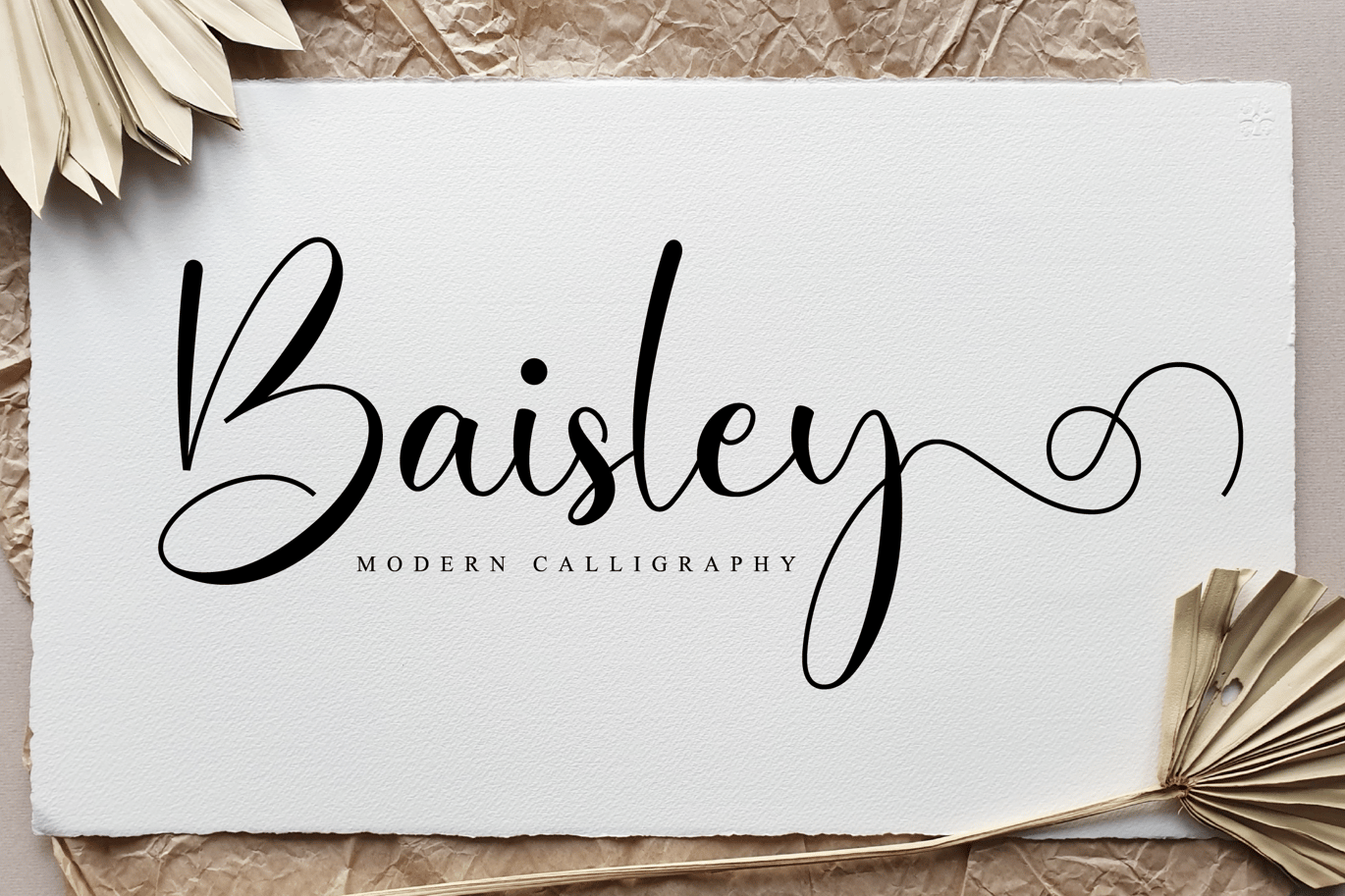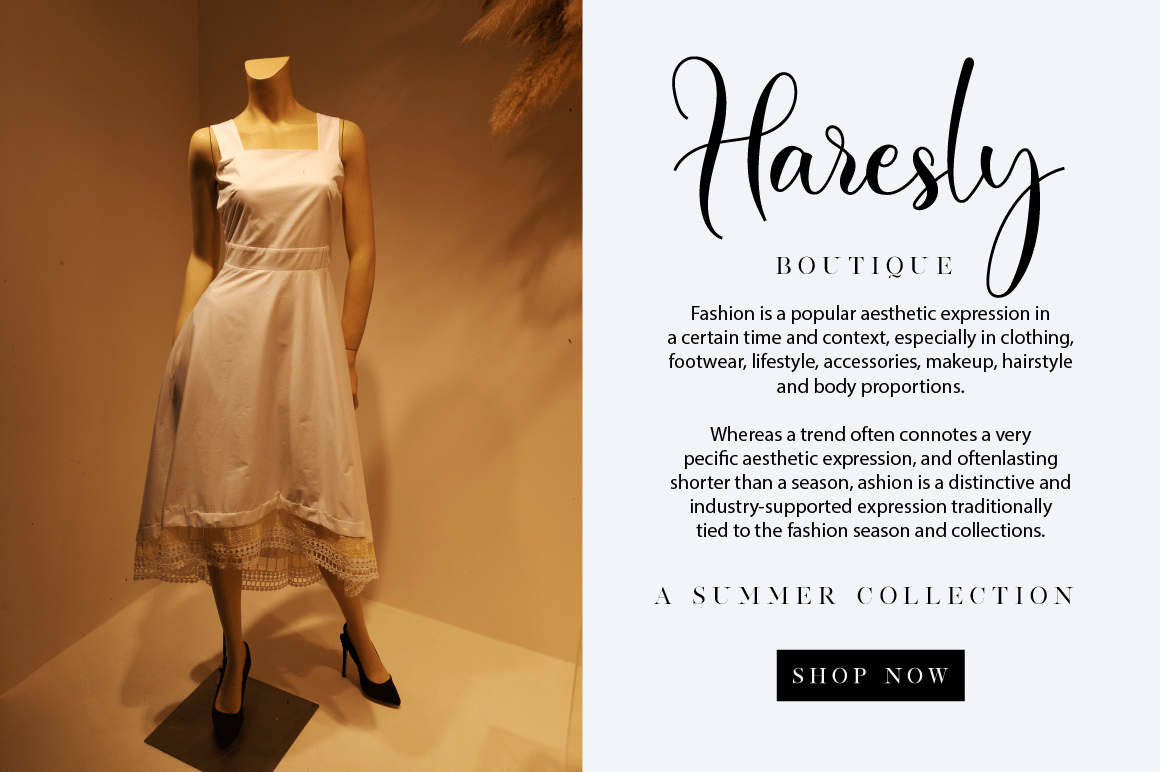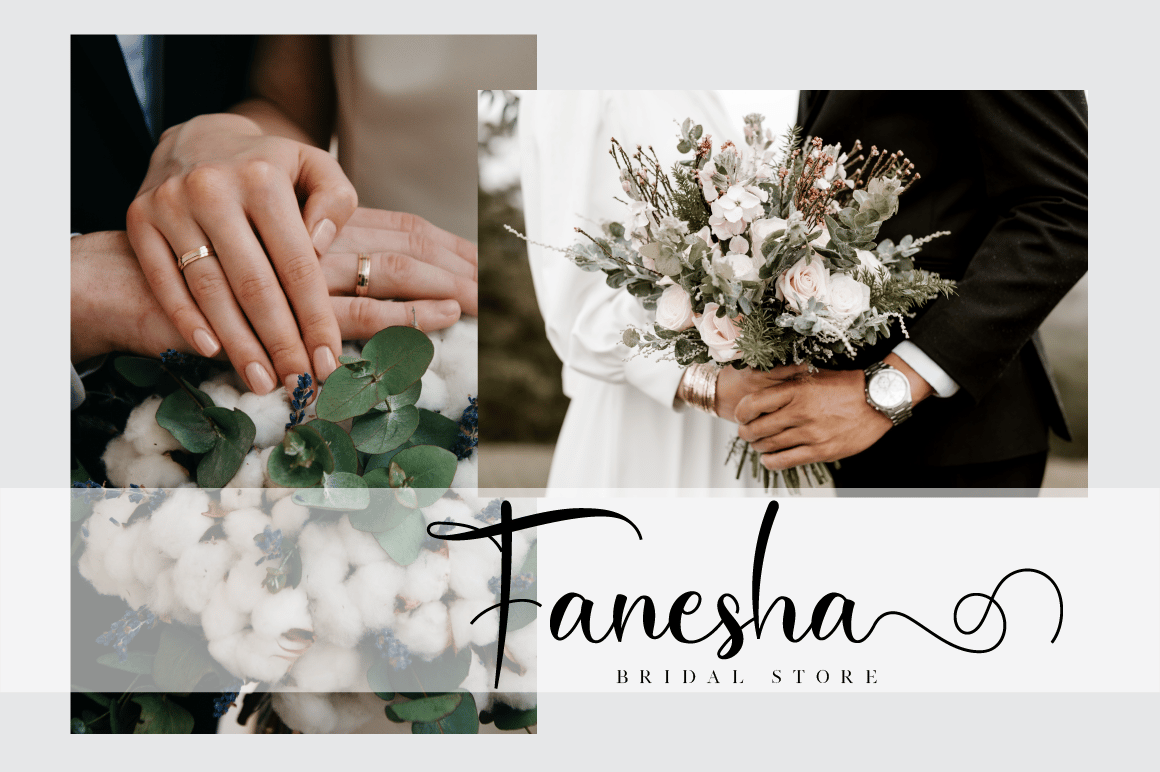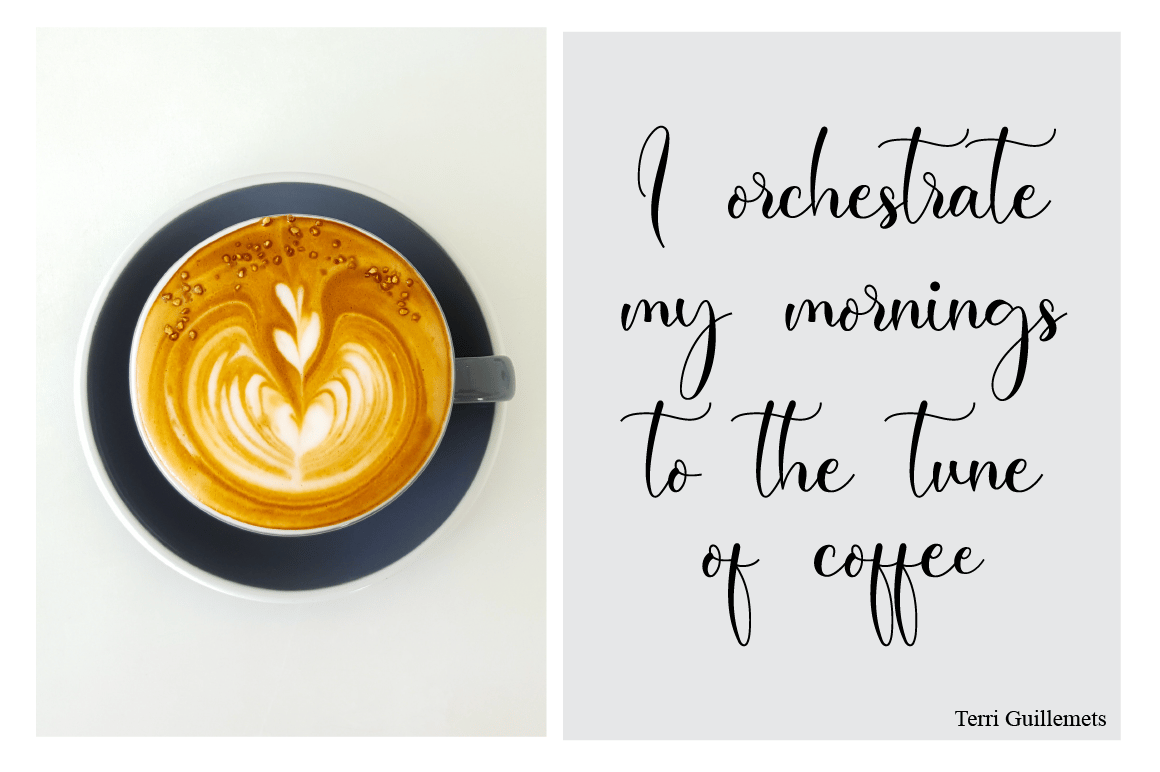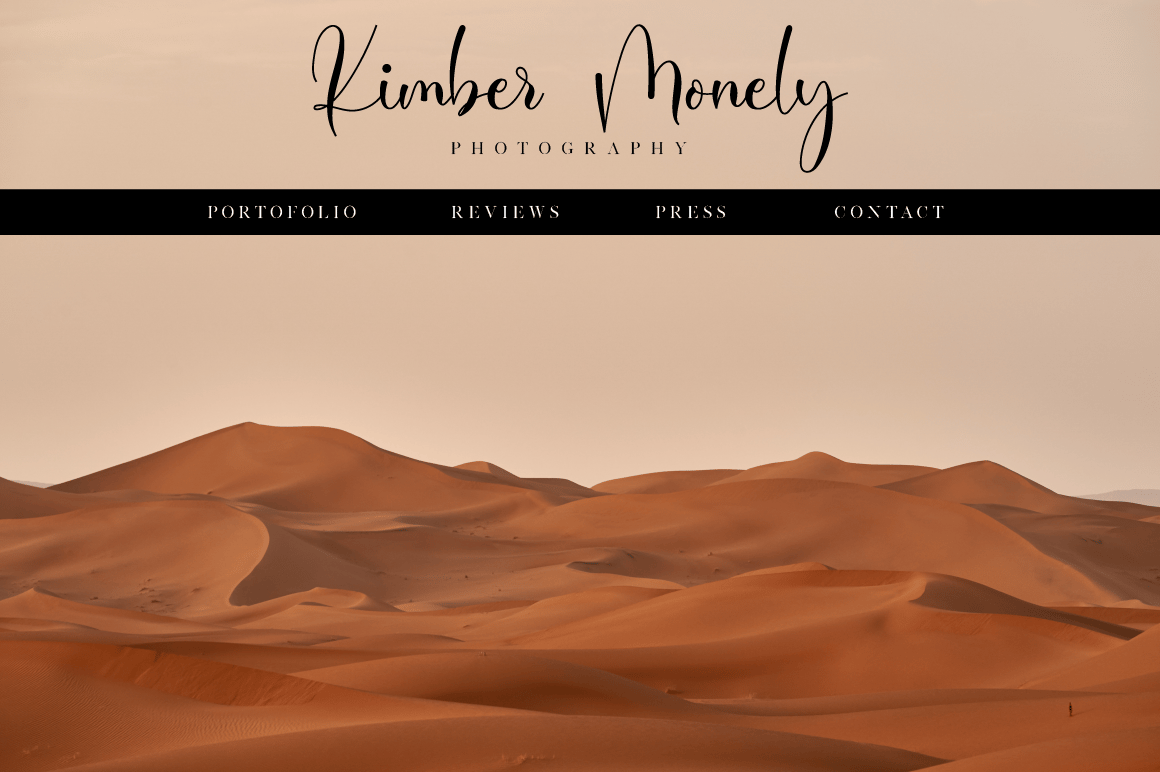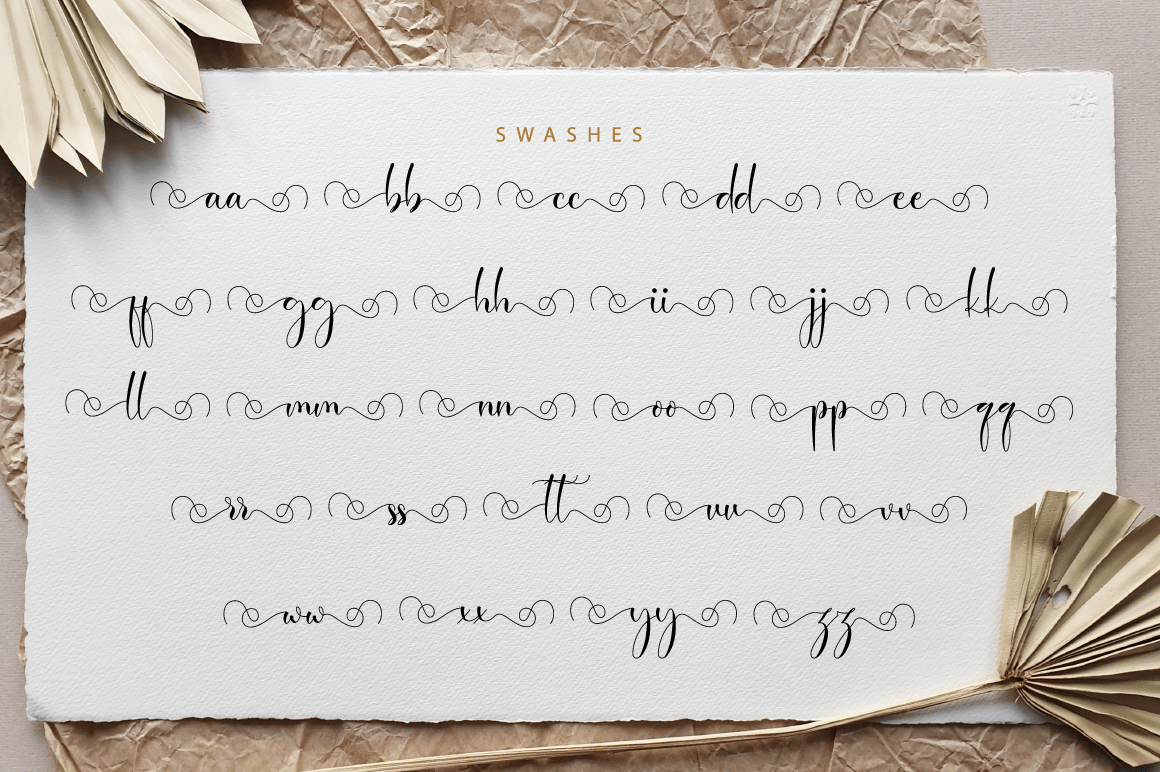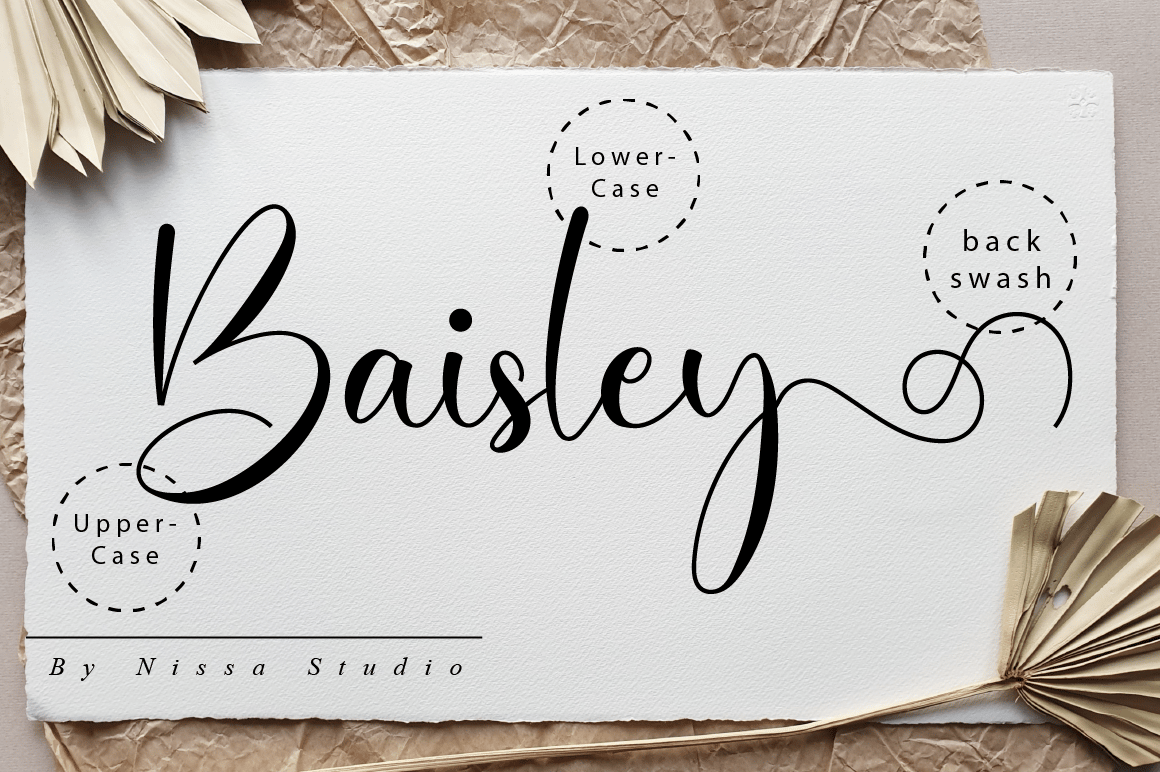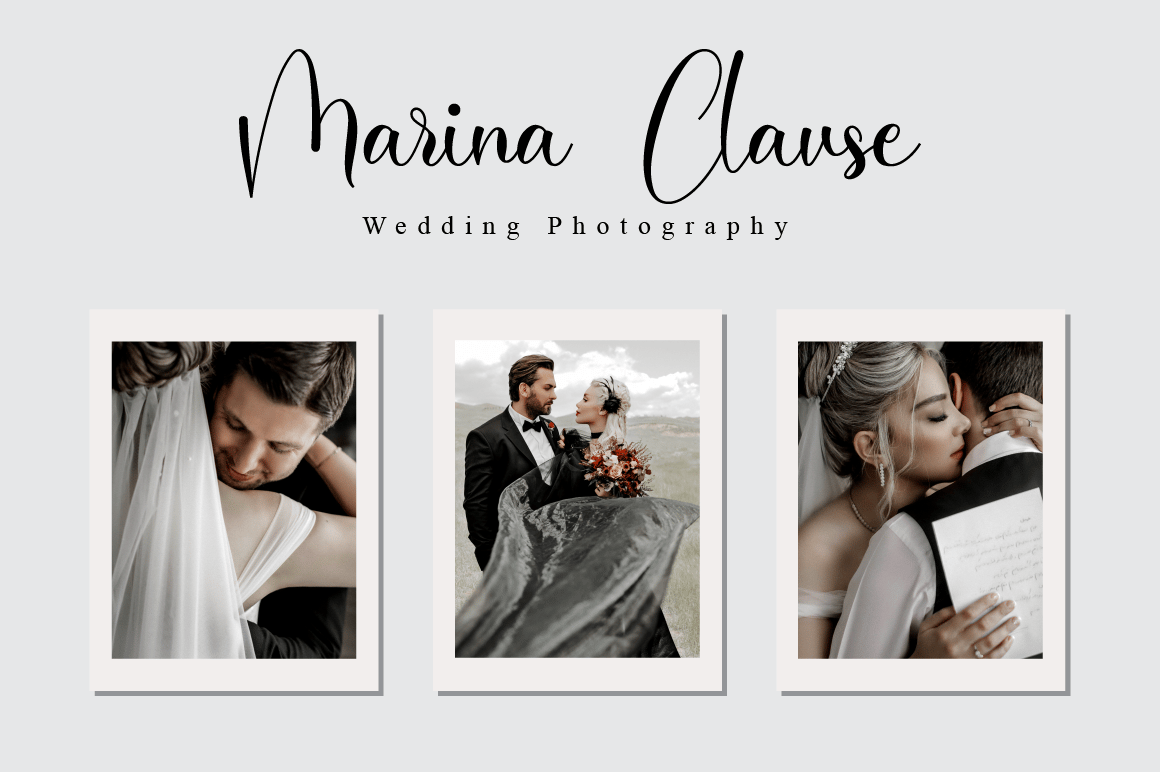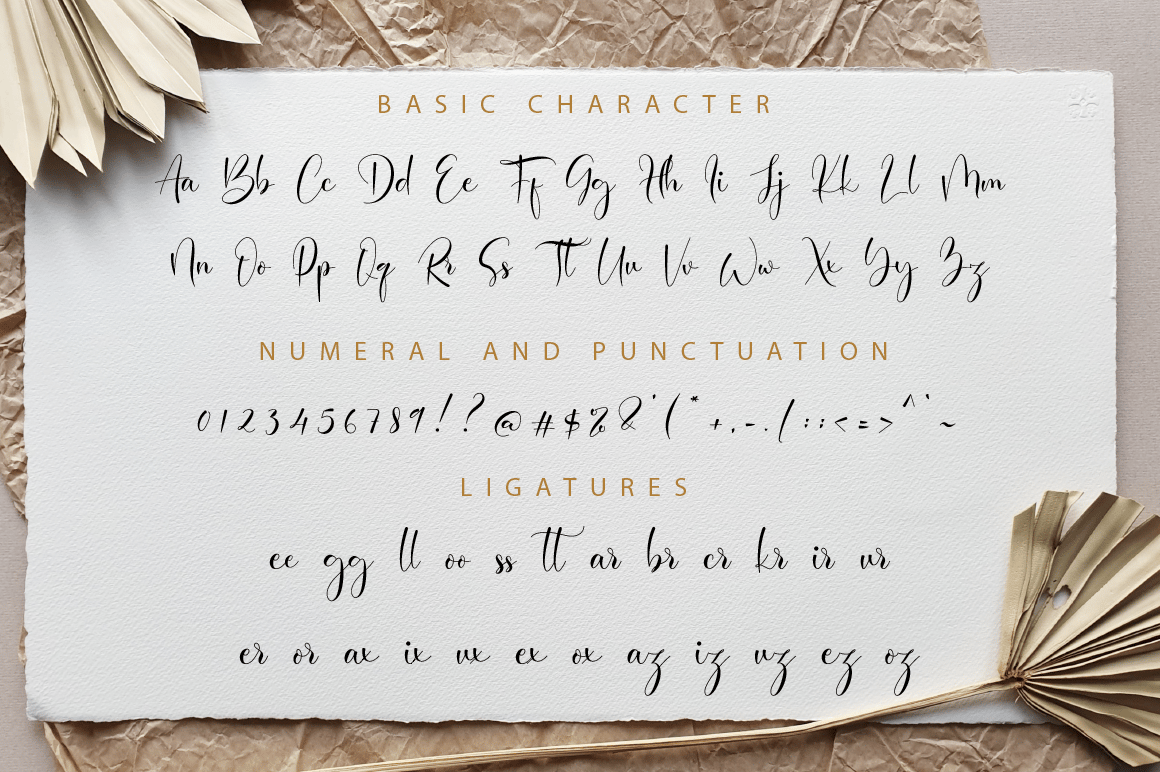
Baisley – Wedding Font
Baisley is a beautiful script font. It has a classy, elegant, and modern look. This font is the perfect fit for all of your logos, branding, social media, and crafty DIY projects.
- Modern Handwritten Font
- Beautiful Swash (Ending tail)
- Beautiful Titling (Beginning tail)
- Special Ligatures